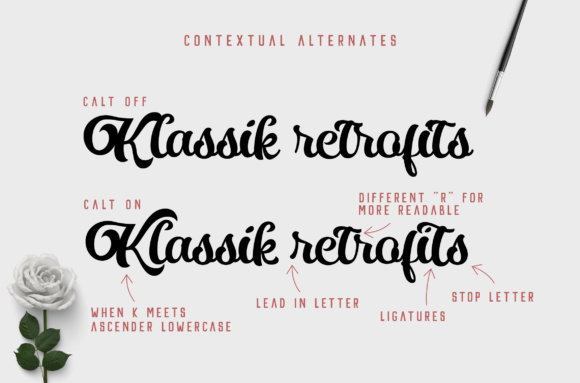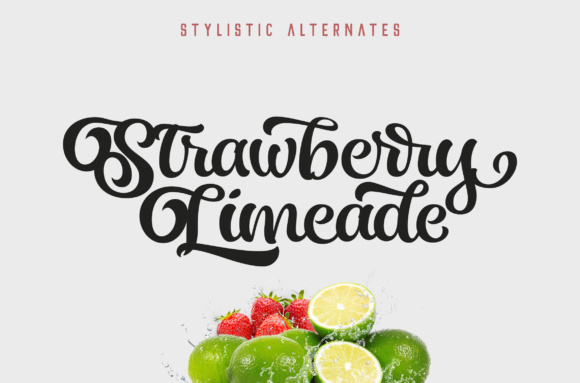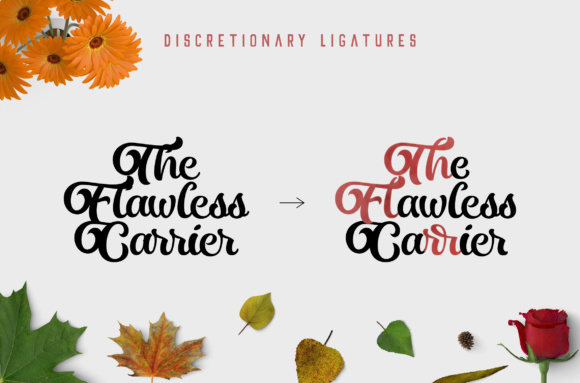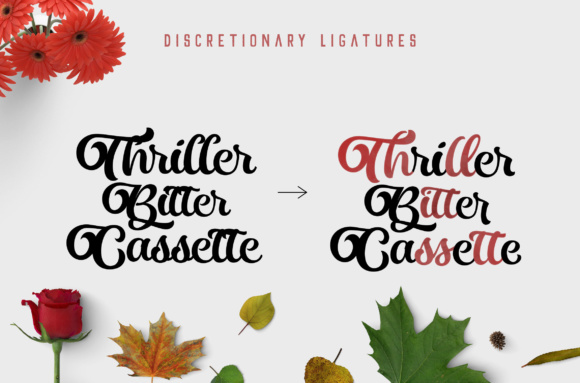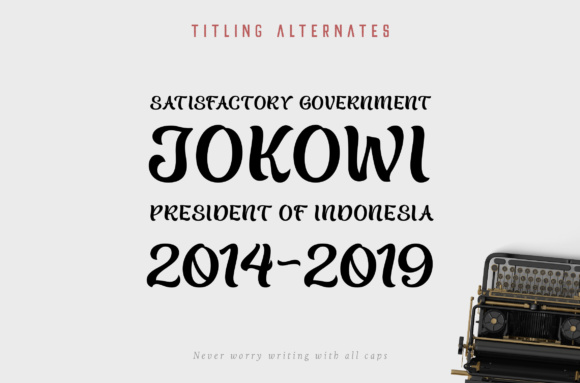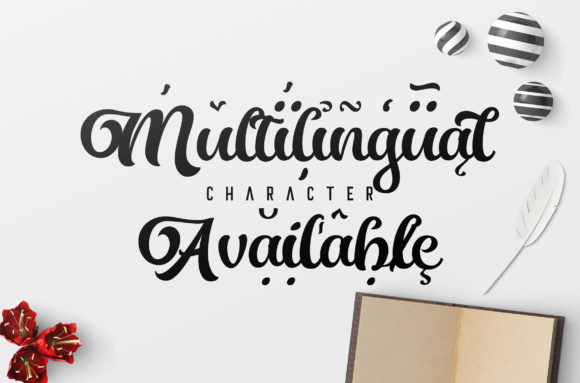
Introducing Almost Lover Font: The Perfect Blend of Romance and Playfulness
Are you a designer or crafter looking for a font that exudes romance and playfulness? Look no further than Almost Lover Font, a bold and bouncy calligraphy font that’s perfect for use in displays and headlines. With its charming and whimsical vibe, this font is sure to add a touch of elegance and sophistication to any project.
What is Almost Lover Font?
Almost Lover Font is a beautifully crafted calligraphy font that’s designed to make a statement. Its bold and bouncy strokes give it a lively and energetic feel, while its romantic undertones make it perfect for use in wedding invitations, Valentine’s Day cards, and other projects that require a touch of whimsy and charm.
Key Features of Almost Lover Font
- Bold and Bouncy Strokes: The font’s bold and bouncy strokes give it a lively and energetic feel that’s perfect for use in displays and headlines.
- Romantic Vibe: The font’s romantic undertones make it perfect for use in projects that require a touch of elegance and sophistication.
- Complementary Font: The font comes with a complementary font that allows you to create typographic pairings that suit all your projects.
Uses of Almost Lover Font
Almost Lover Font is a versatile font that can be used in a variety of projects, including:
- Wedding Invitations: The font’s romantic vibe makes it perfect for use in wedding invitations, save-the-date cards, and other wedding-related projects.
- Valentine’s Day Cards: The font’s playful and romantic feel makes it perfect for use in Valentine’s Day cards, gift tags, and other projects.
- Signs and Displays: The font’s bold and bouncy strokes make it perfect for use in signs, displays, and other projects that require a touch of elegance and sophistication.
- Social Media Graphics: The font’s playful and romantic feel makes it perfect for use in social media graphics, including Facebook posts, Instagram stories, and other projects.
Why Choose Almost Lover Font?
There are many reasons why you should choose Almost Lover Font for your next project. Here are just a few:
- Unique and Eye-Catching: The font’s bold and bouncy strokes make it unique and eye-catching, perfect for use in projects that require a touch of elegance and sophistication.
- Easy to Read: The font is easy to read, even at small sizes, making it perfect for use in a variety of projects.
- High-Quality Design: The font is designed to high-quality standards, ensuring that it looks great in any project.
Here are some tips and tricks for using Almost Lover Font:
- Use it with a Complementary Font: Use the font with its complementary font to create typographic pairings that suit all your projects.
- Experiment with Different Sizes: Experiment with different sizes to find the one that works best for your project.
- Use it in Combination with Other Fonts: Use the font in combination with other fonts to create a unique and eye-catching look.
| Font Name | Almost Lover Font |
| Author | Adam Fathony |
Almost Lover Font is a beautiful and versatile font that’s perfect for use in a variety of projects. With its bold and bouncy strokes, romantic vibe, and complementary font, it’s the perfect choice for designers and crafters who want to add a touch of elegance and sophistication to their projects.